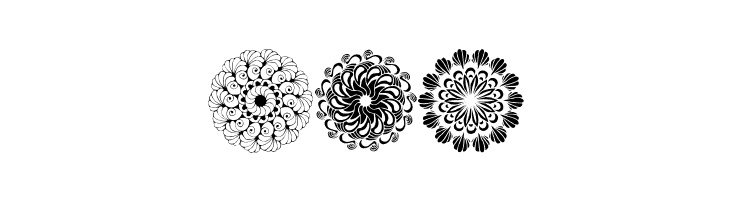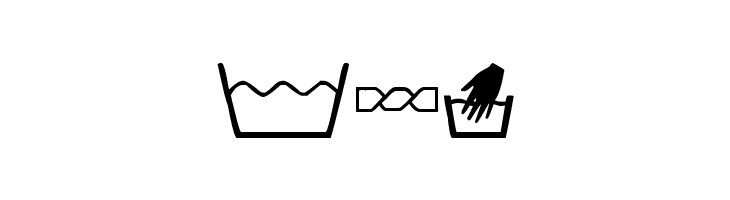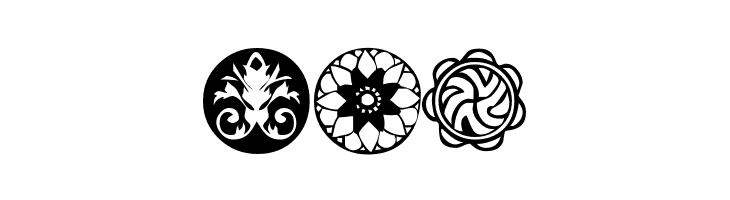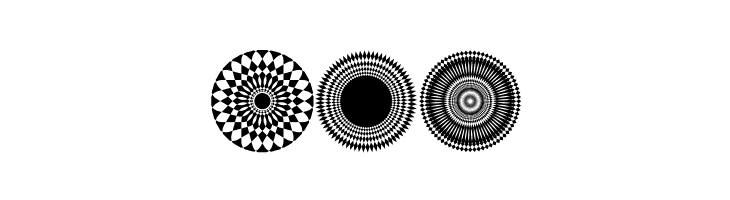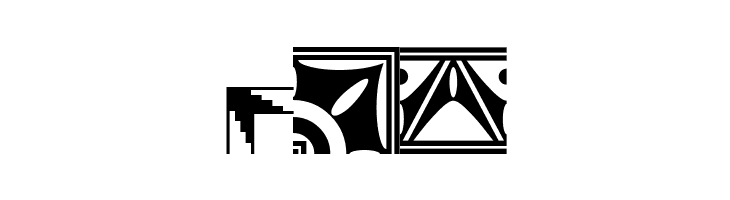
Ornamental dingbat font with detailed mandala and floral motifs.
A bold pictogram font with laundry and wash-care symbols.
A decorative floral dingbat set with varied flower and plant motifs.
Intricate circular designs with floral and ornamental motifs in black and white.
A collection of intricate floral and botanical designs with detailed artistry.
A decorative font with a cross-stitch embroidery style.
A bold, tartan-patterned font with a strong Scottish influence.
A decorative geometric pattern font with Southwestern influences.